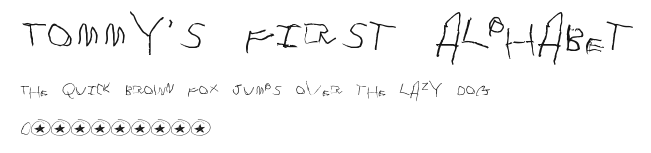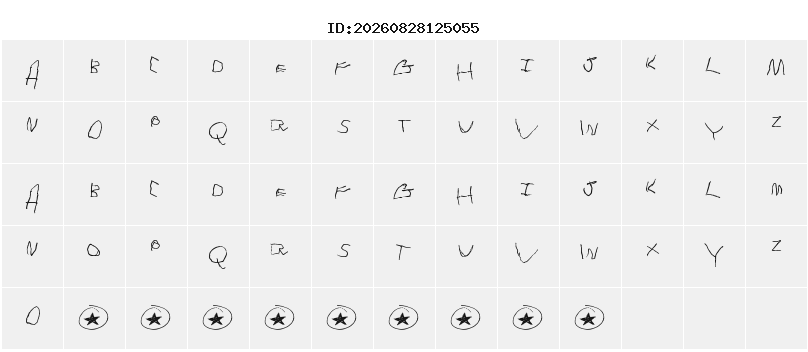
• Designer: Tom Murphy 7
• Manufacturer: [ Divide By Zero ]
• Description: Created by Tom Murphy 7. Sorry about this one... when I found this historic piece of my childhood I just had to make this font. All of the letters are authentic species from my first alphabet ever! Some punctuation has been fudged to make the font usable, but all the letters are real... [Divide By Zero] fonts: http://fonts.tom7.com/